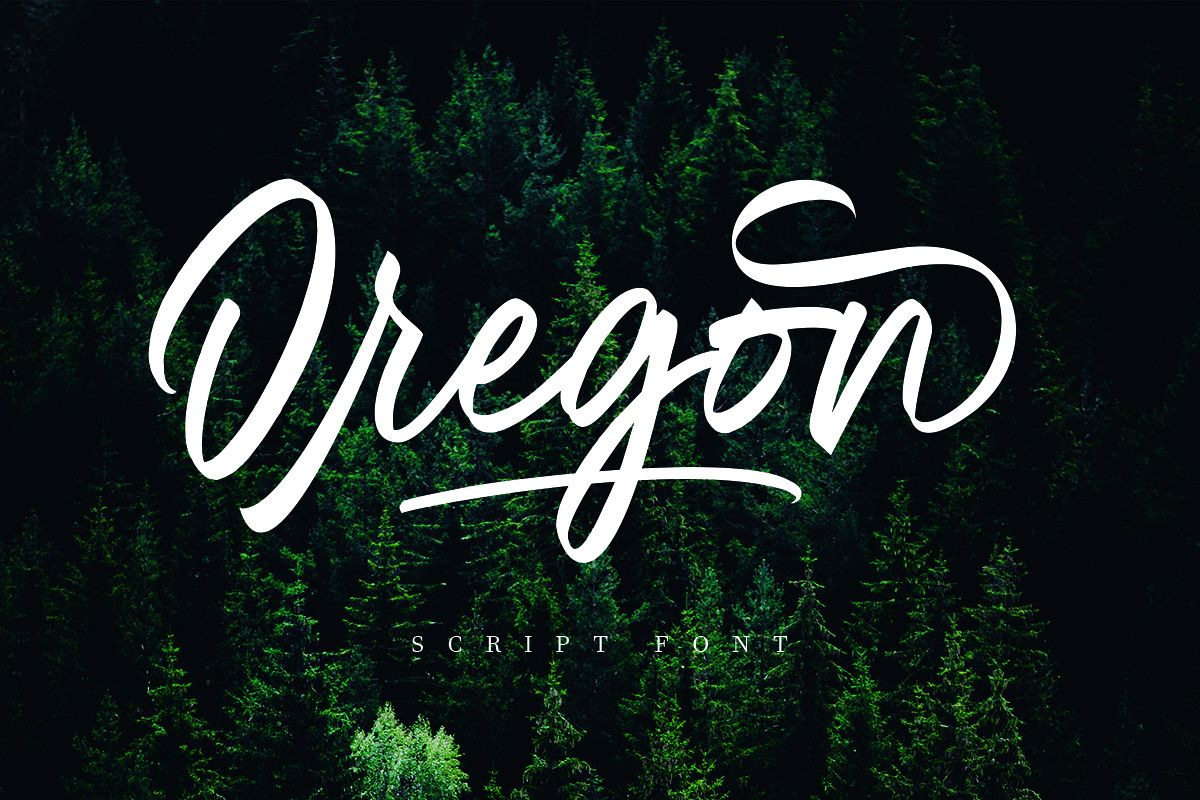
Oregon Script
OregonSwashes
OregonScript
OregonScriptAlt
INTRODUCE.................! Oregon Script with 30 ligatures!Oregon is a type of handmade script. You can use it as a type of logo, badge, packaging, title, poster, t-shirt / clothing, greeting cards, wedding invitations and many more. Character flowing is ideal for creating attractive messages, plus ligature which is ideal for adjusting your project.Oregon Multilingual support :áäåãéèëìïîòöôøùüAÀÁÂÃÄÅEÈÉÊËIÌÍÎÏNÑOÒÓÔÕÖUÙÜÚÛYÝŸ?ŸOregon font ligature :Or aa ar cr ea ee es er ff gg gr ia ie ii ir ll lr oa of on oo or os ss tt ua ur th tr ttFiles include :